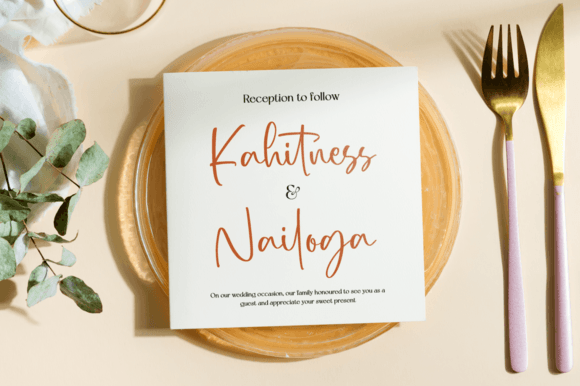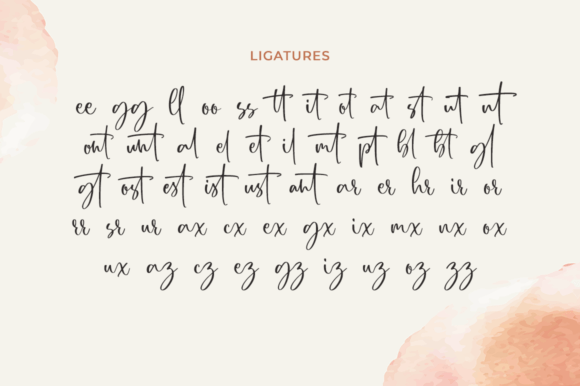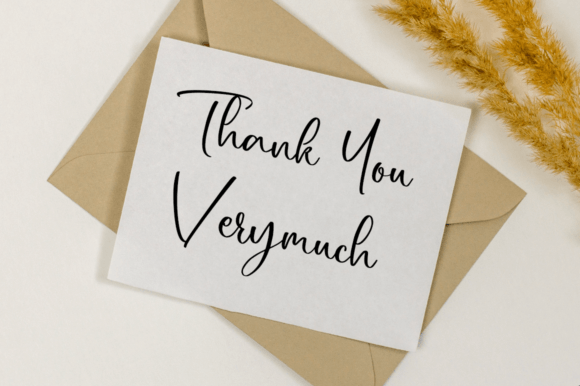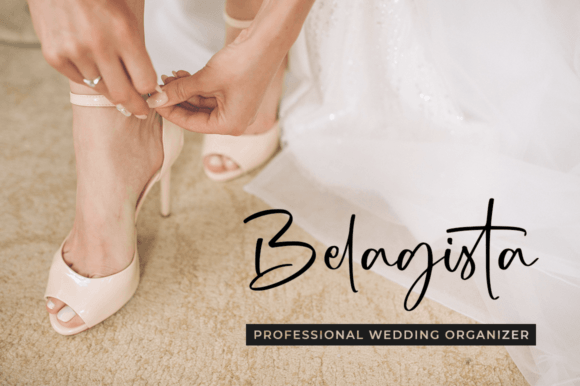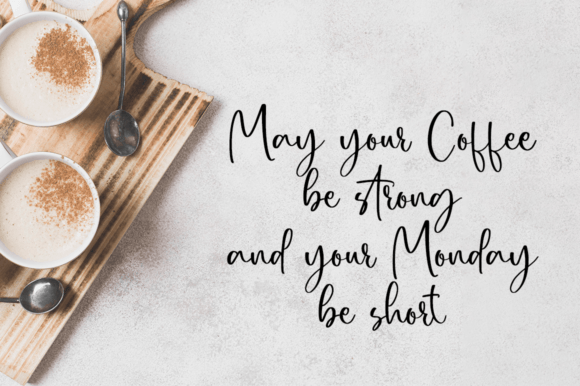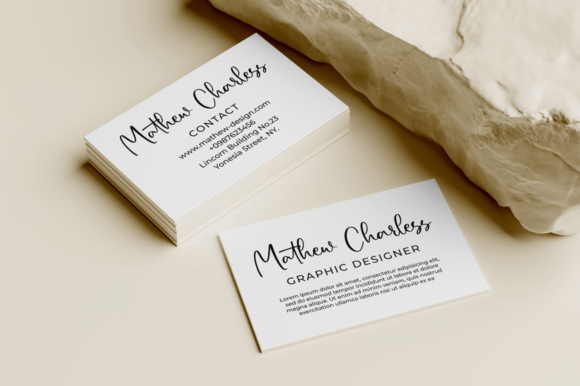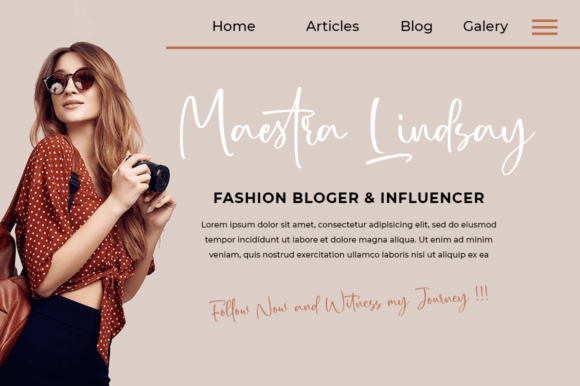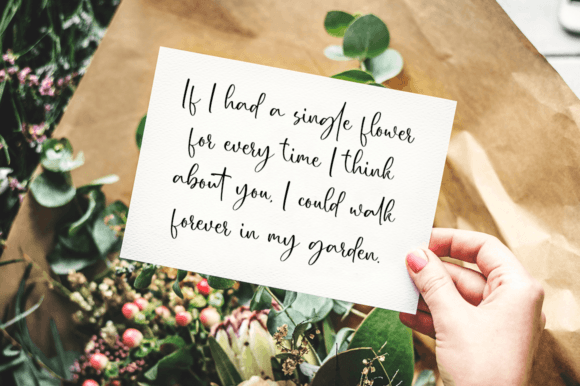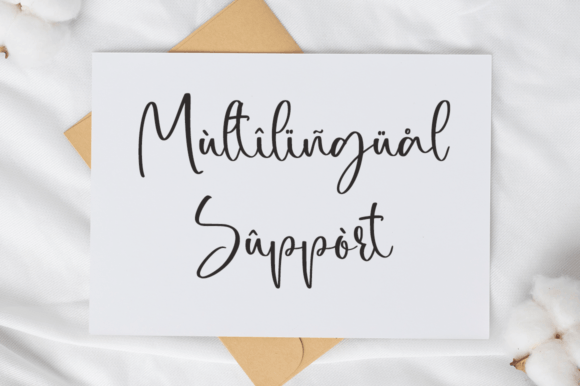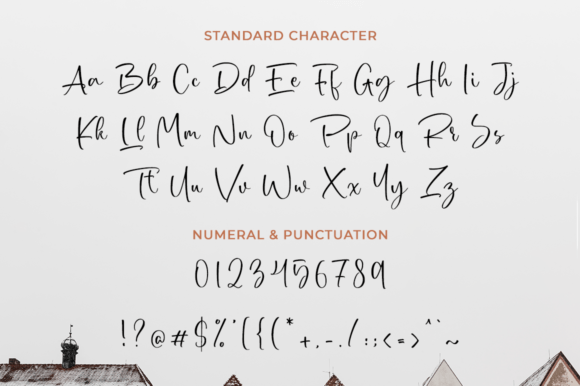
Liechester Font
Liechester is a beautiful script font that exudes refinement, offering an elegant and modern aesthetic to elevate your creative projects. Whether applied to logos, branding materials, invitations, stationery, wedding designs, social media posts, or various other applications, Liechester brings a touch of sophistication to the forefront of your designs.
The refined style of Liechester is designed to provide an elegant and modern look, making it a versatile choice for a variety of creative endeavors. Its application spans across different contexts, enhancing the visual appeal of diverse projects.
One notable feature of Liechester is its PUA encoding, allowing easy access to all glyphs and swashes. This feature enhances the font’s user-friendliness, providing you with the flexibility to incorporate unique characters seamlessly into your designs and explore creative possibilities effortlessly.
In summary, Liechester is more than just a font; it’s a design asset that brings beauty and refinement to your creative work. Whether you’re working on print or digital media, its elegant script and PUA encoding make it a valuable tool for designers aiming to achieve a sophisticated and modern look in their projects.